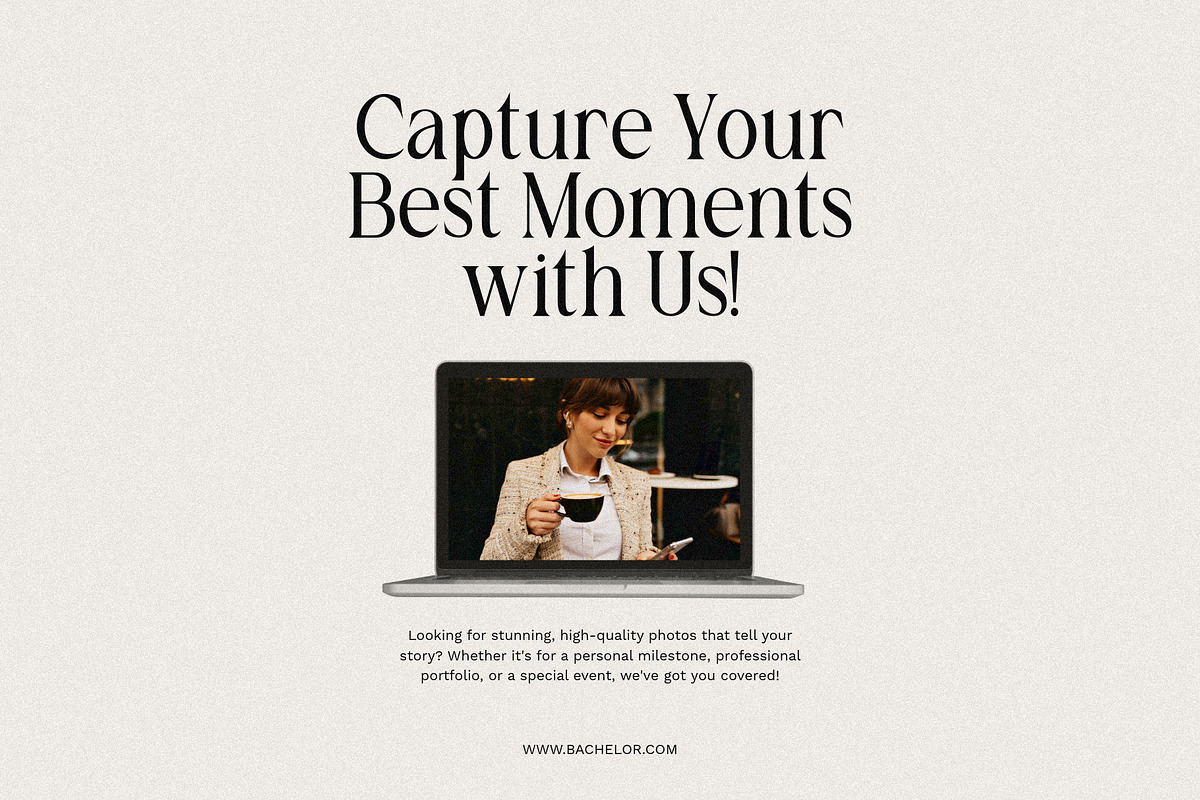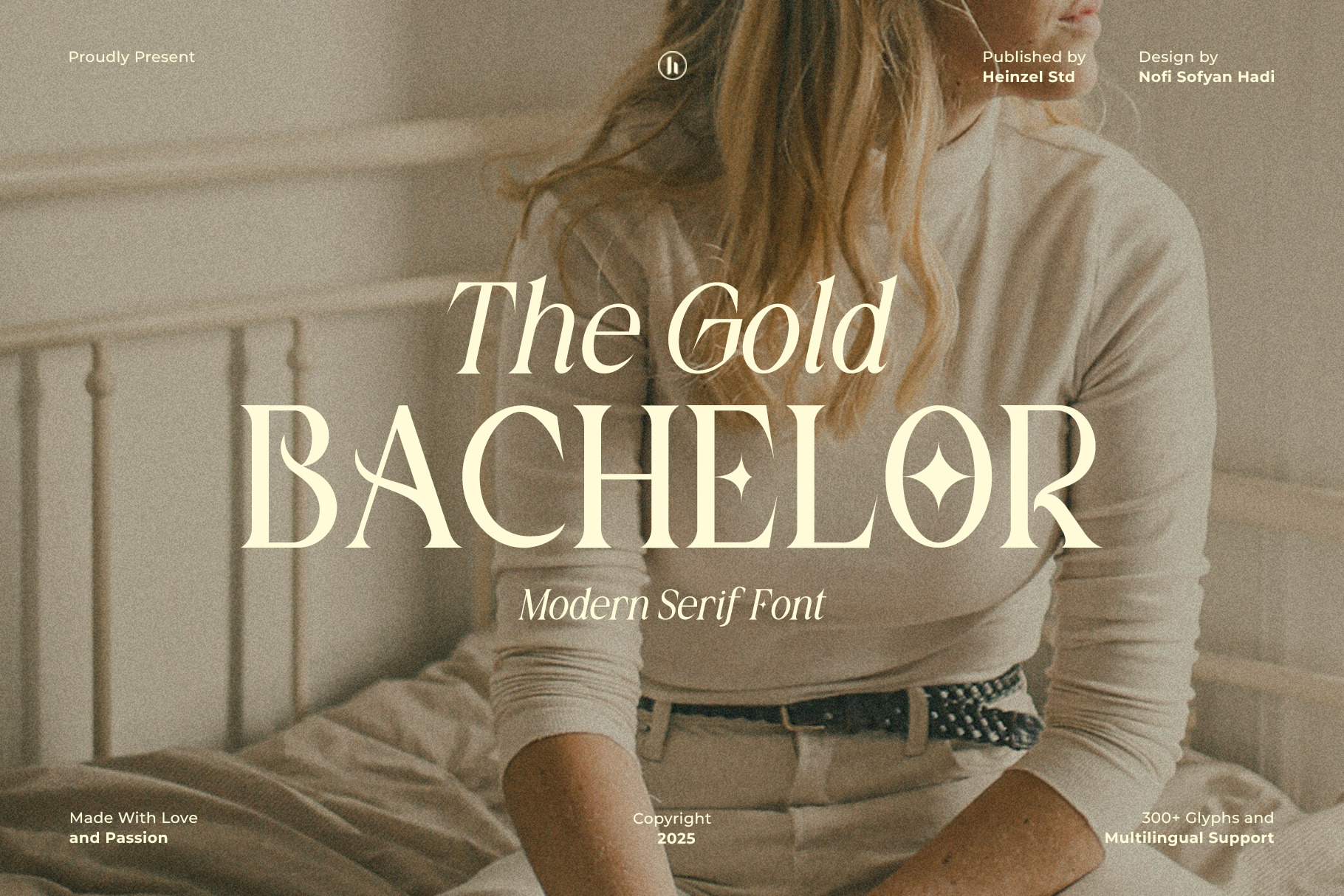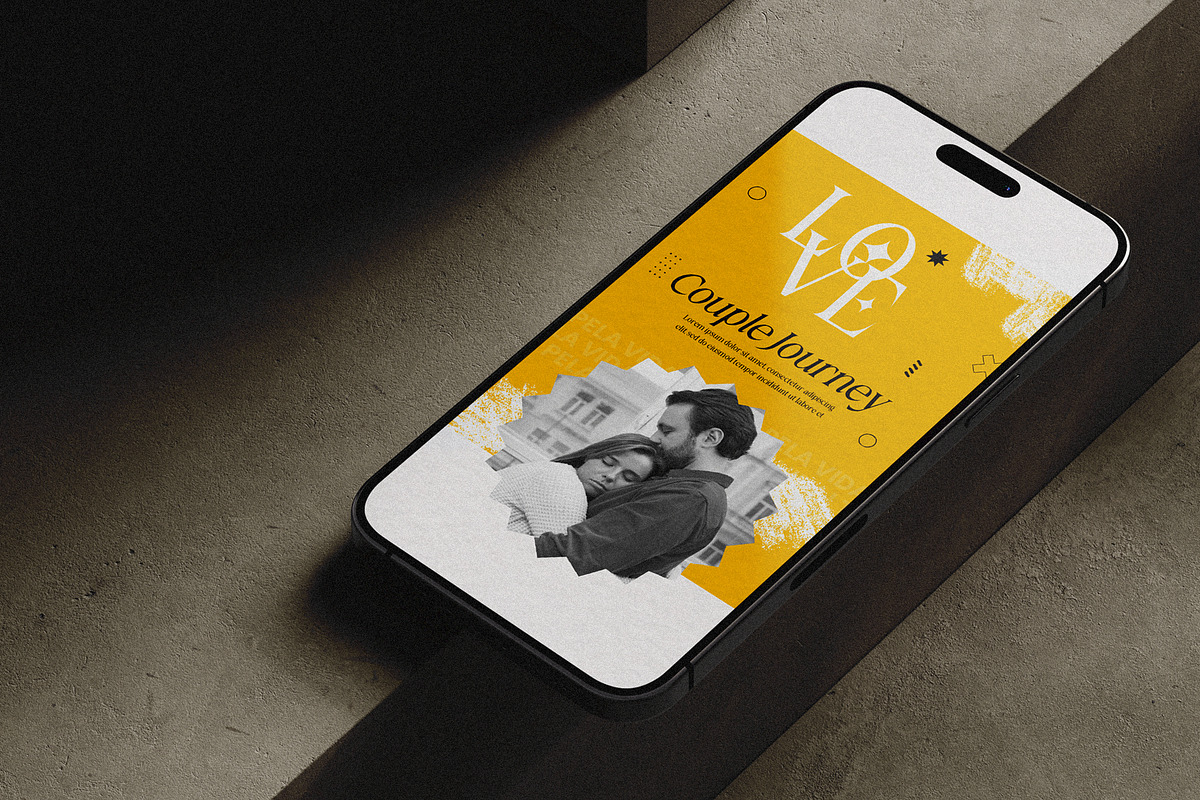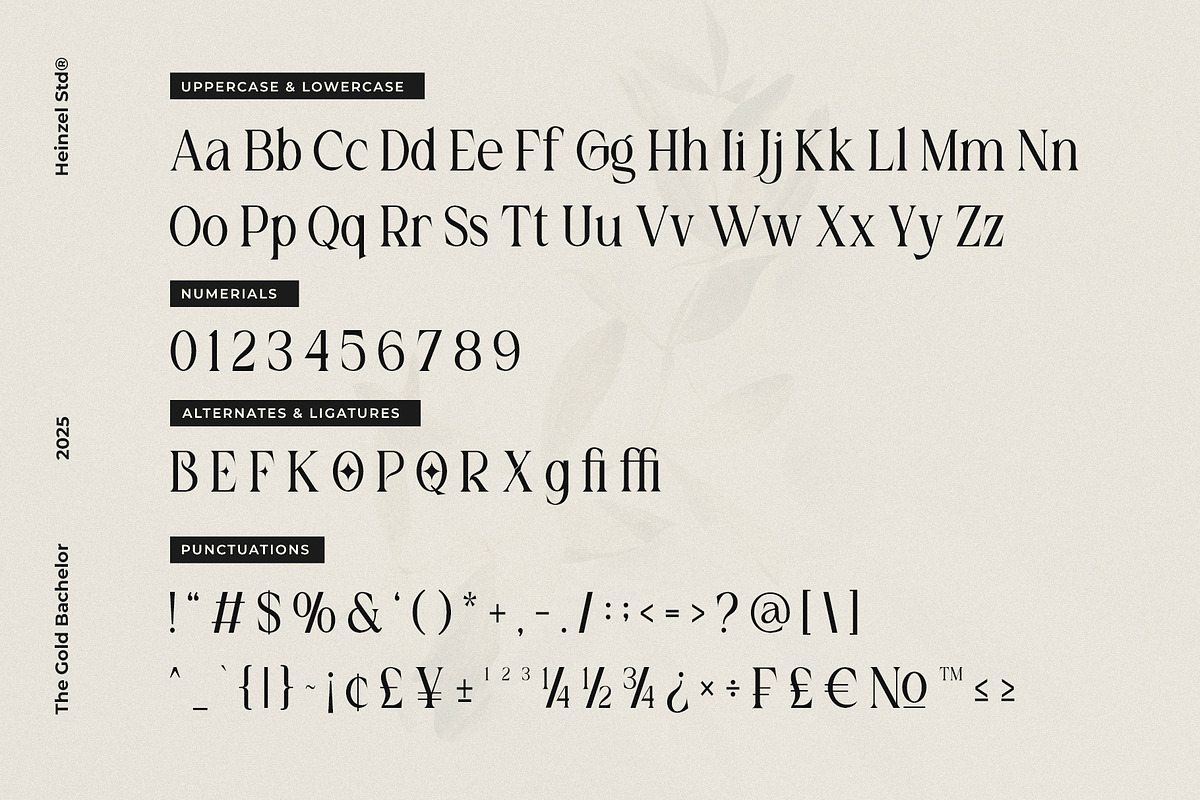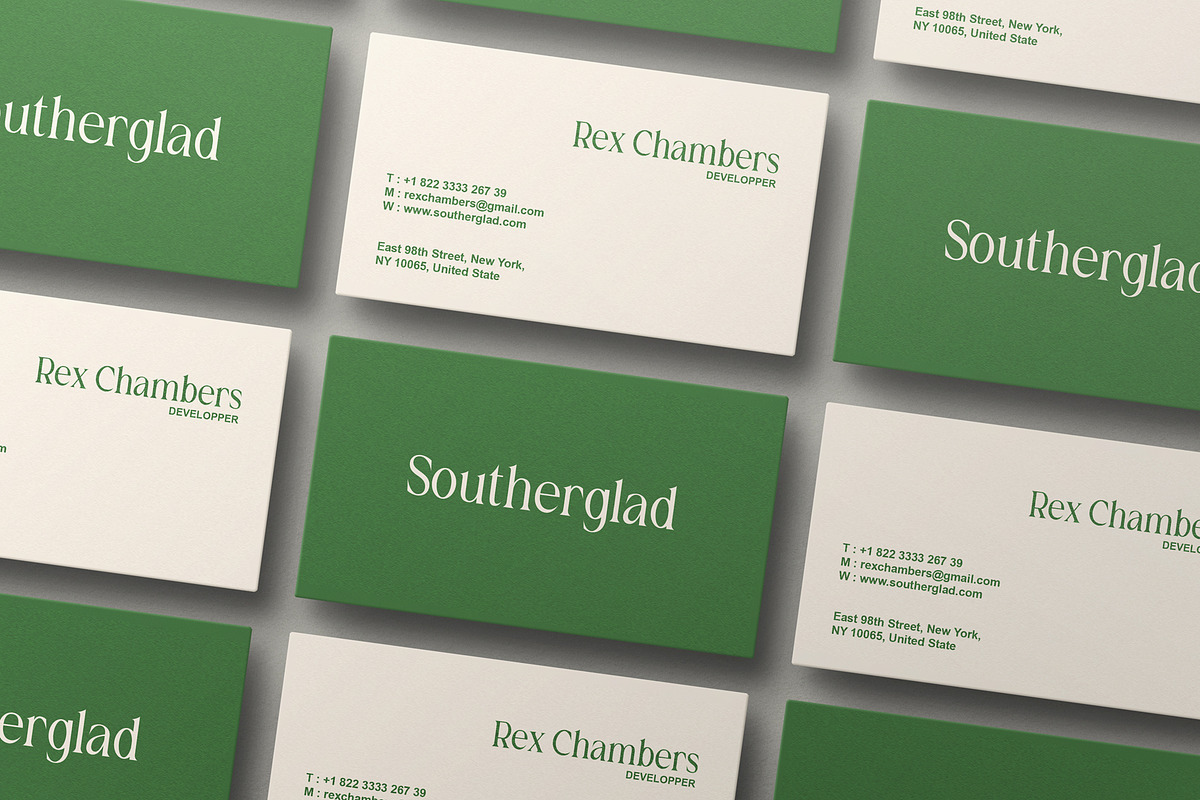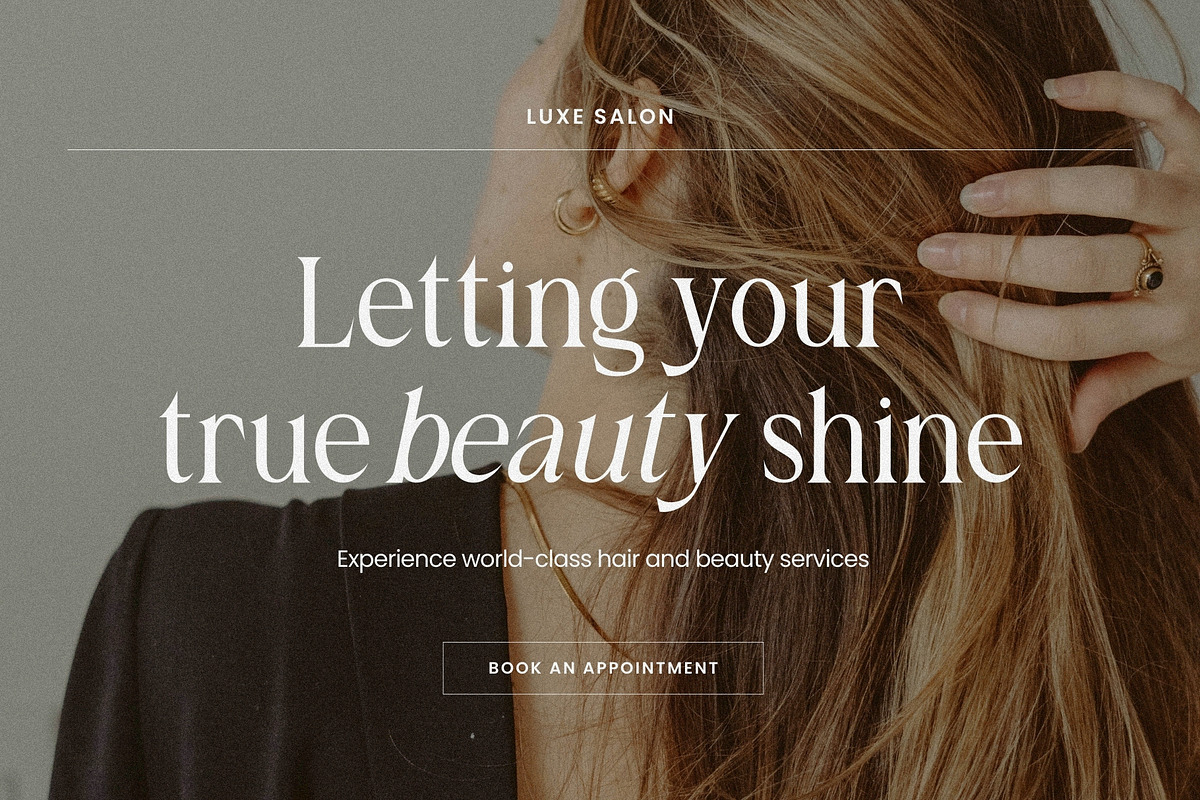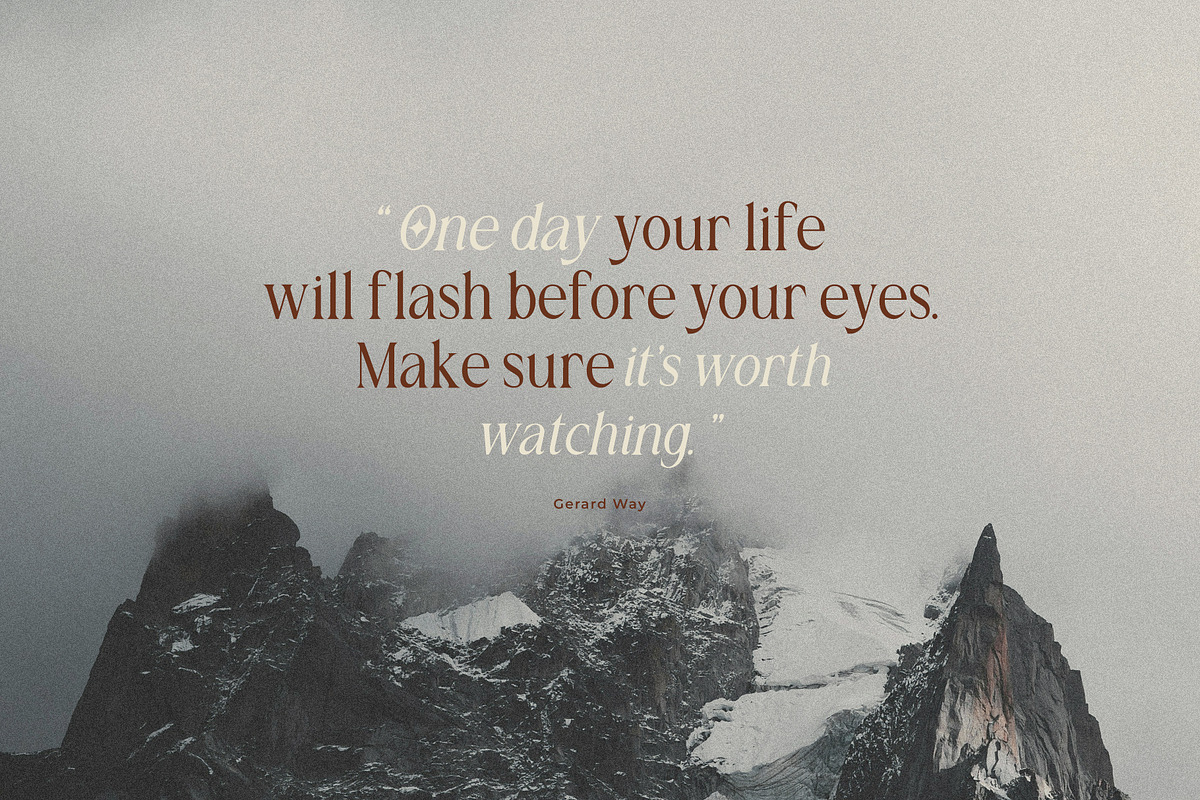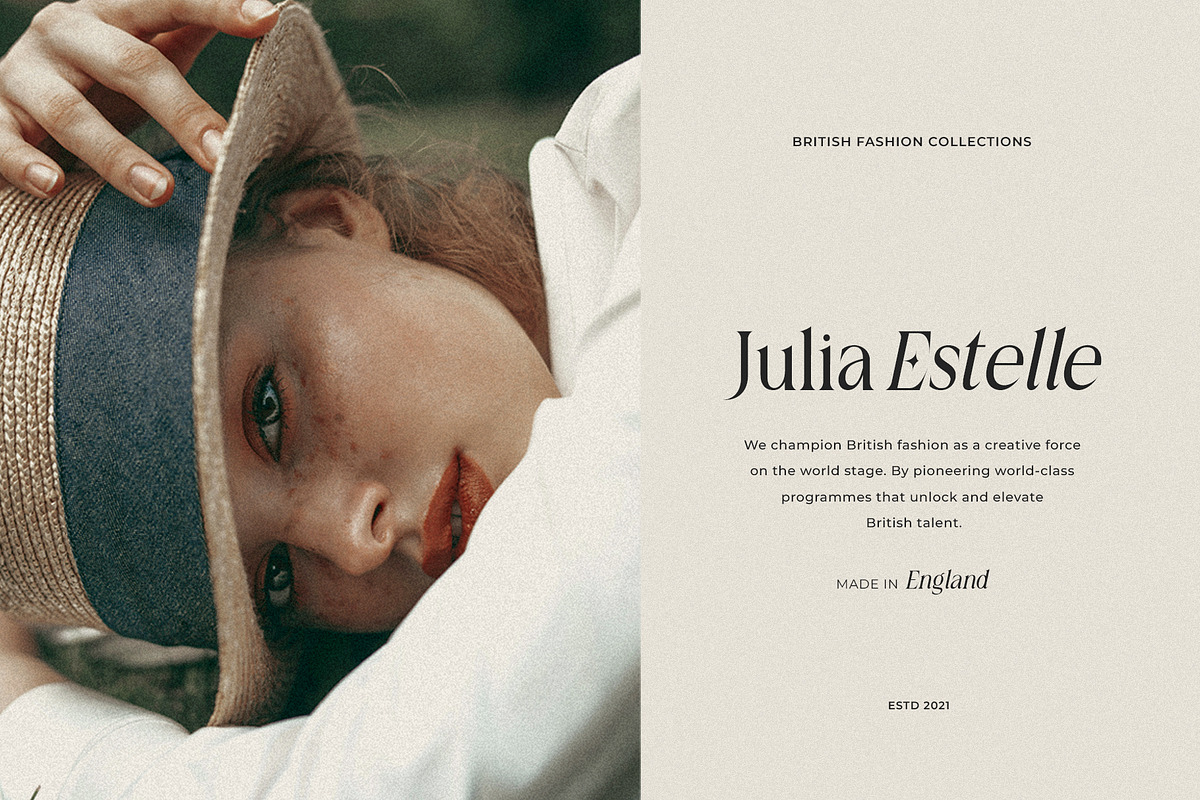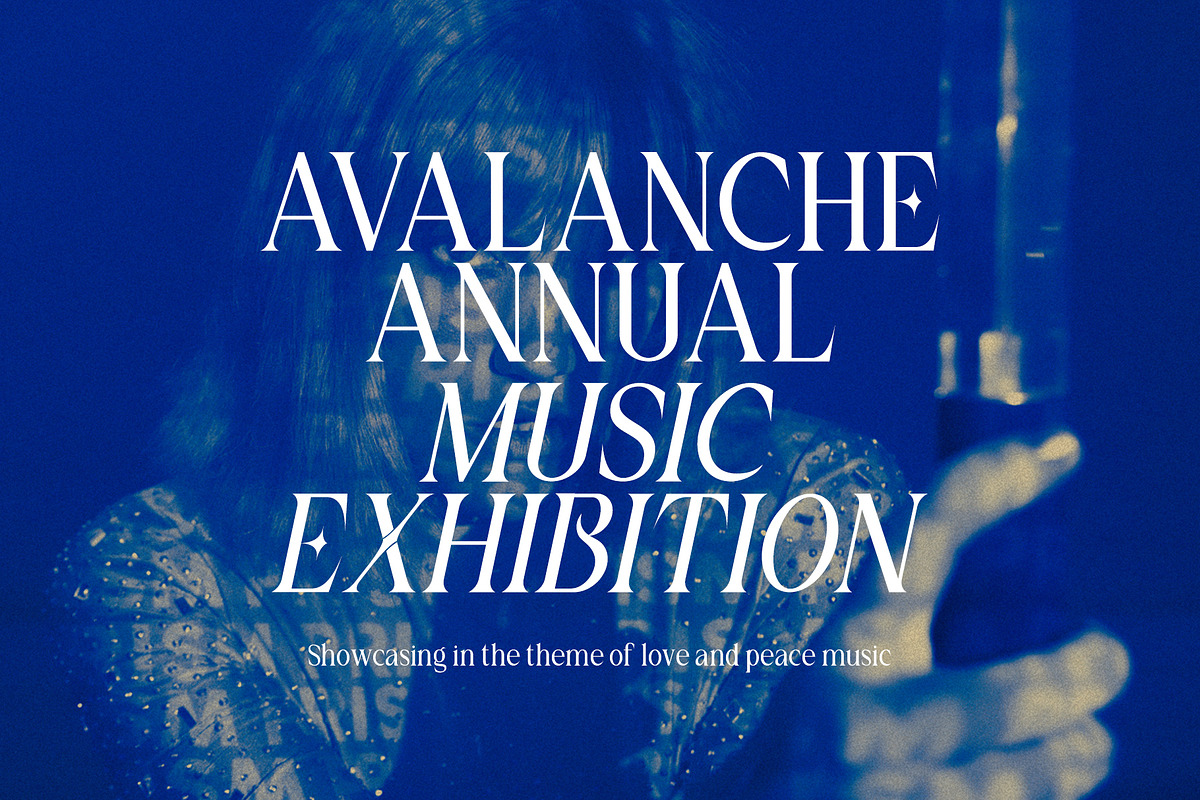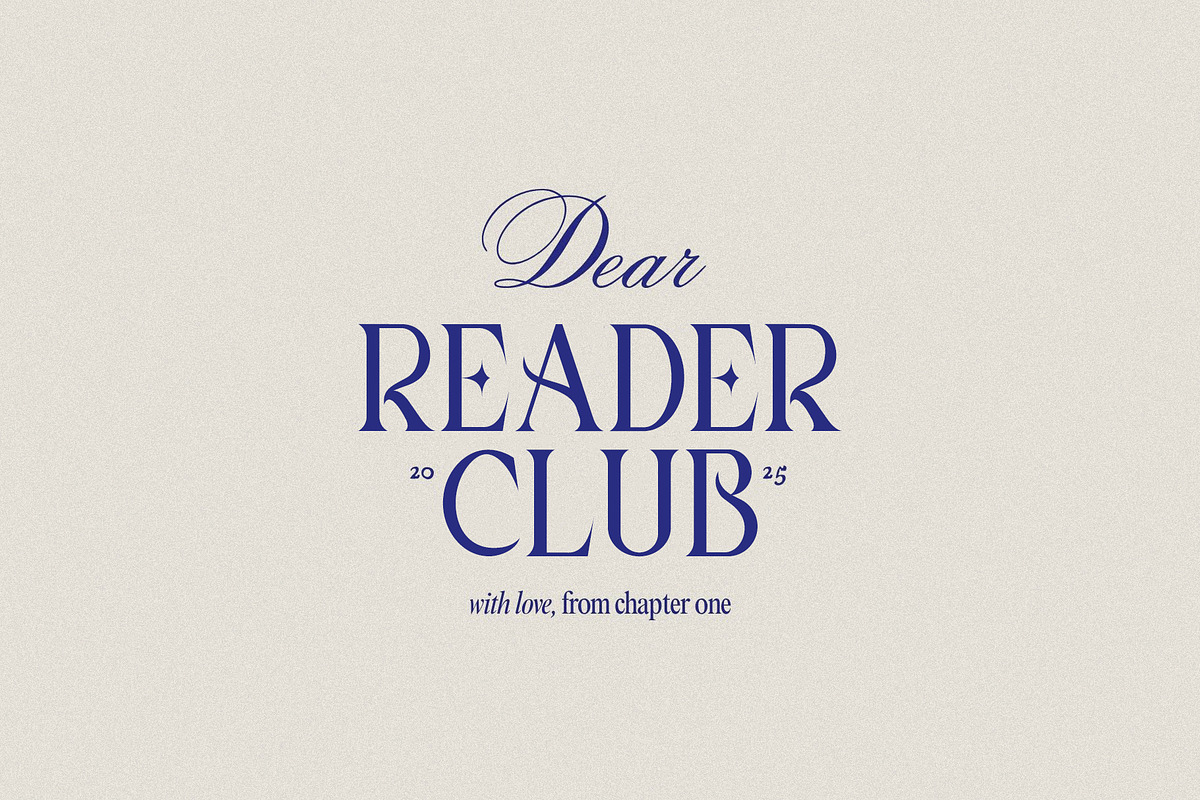
The Gold Bachelor Modern Serif Font
The Gold Bachelor Serif Font
Introducing The Gold Bachelor – a modern serif font that brings timeless sophistication to your designs. This elegant typeface features clean, refined regular glyphs and a graceful italic version, perfect for creating stylish headlines, branding projects, editorials, invitations, and luxury logos.
With its balanced contrast and smooth curves, **The Gold Bachelor** delivers both classic charm and contemporary flair. It includes 300+ glyphs with multilingual support, ensuring versatility across a wide range of design needs. Whether for fashion magazines, wedding stationery, or upscale branding, this serif font adds a touch of golden elegance to every project.
Regular and Italic Version
Numerical and Punctuation
Ligatures and Alternates
Multilingual Language